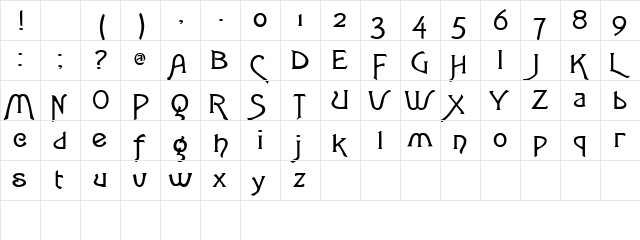
LoveLettersExtended Regular
Design Context for LoveLettersExtended Typeface
LoveLettersExtended is a composed and adaptable typeface that performs quietly and consistently across a wide range of design contexts.